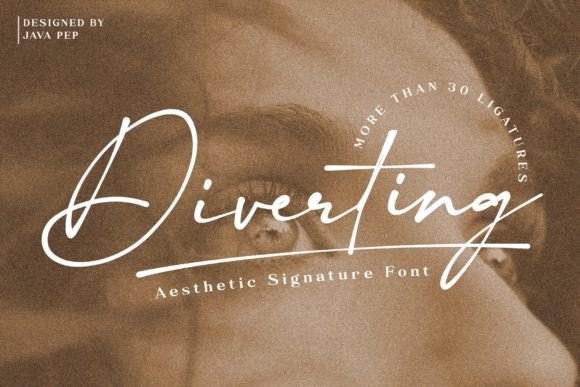
Embark on a typographic journey with Diverting Font, an exquisite script font brimming with charm and sophistication. Its graceful curves and elegant strokes exude an aura of timeless beauty, capturing the essence of handwritten artistry. Let Diverting Font elevate your creative projects to new heights of elegance and distinction.
Step into a world of endless possibilities with Diverting Font. Its versatility knows no bounds, adapting seamlessly to a myriad of design endeavors. Craft eye-catching logos that command attention, leaving an indelible mark on your audience. Design stunning branding materials that reflect your brand's unique identity, exuding professionalism and sophistication. Create heartfelt invitations and stationery that convey your sentiments in a truly memorable manner. Unleash your creativity in wedding designs, imbuing them with a touch of timeless romance and charm. Engage your followers with captivating social media posts, making your content stand out from the digital clutter.
With Diverting Font, you possess the power to transform the ordinary into the extraordinary. Its PUA encoding unlocks a treasure trove of glyphs and swashes, empowering you to effortlessly add intricate details and flourishes to your designs. Unleash your imagination and explore the boundless creative possibilities that await you.